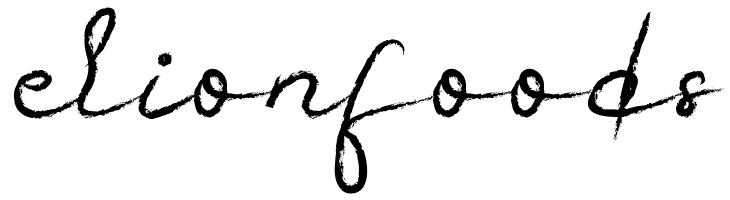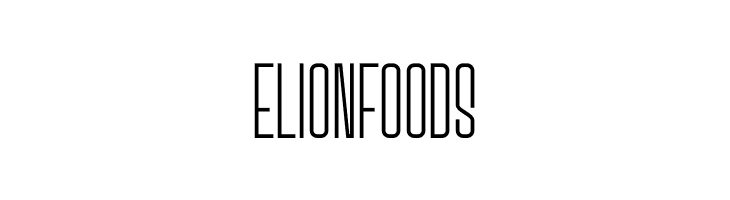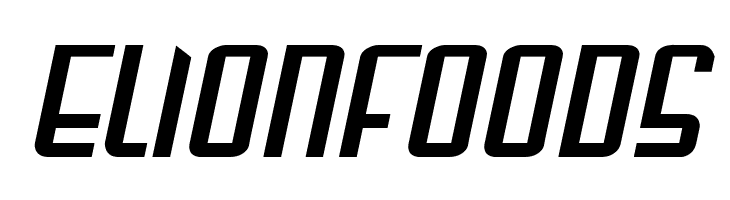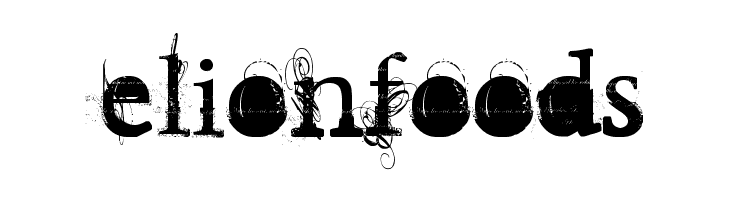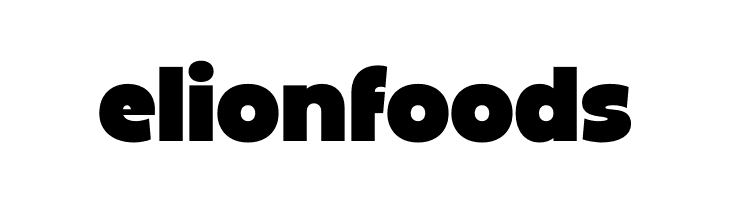
A bold, spiky, and highly decorative font with sharp, angular edges.
An elegant script font with flowing, calligraphic strokes and a modern touch.
A bold, modern font with thick, uniform strokes and a strong presence.
A bold, modern font with a geometric and condensed style.
A bold, condensed font with tall, narrow letterforms and minimal contrast.
A tall, narrow, and modern font with clean lines and uniform structure.
A modern, italic font with sharp angles and a dynamic style.
A playful, dripping font with a gooey, textured appearance.
A bold, modern font with strong, thick strokes and a commanding presence.